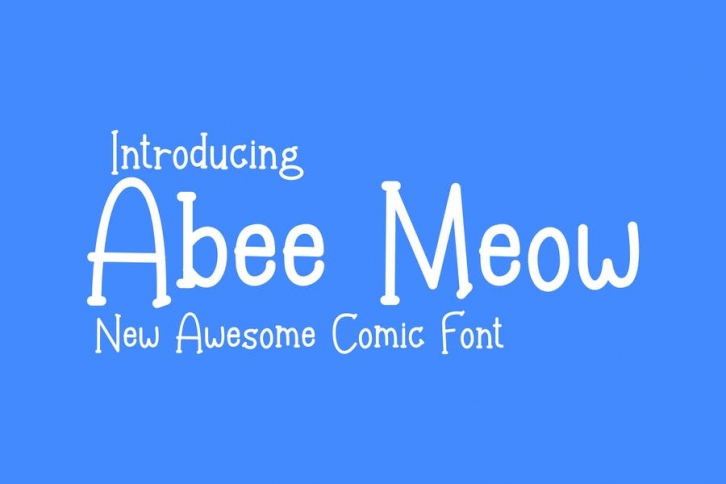
Proudly present our new product Abee Meow Font
Abee Meow Font is a modern and authentic font. Perfect for both professional and branding needs of a product. This font is suitable for any branding project like quotes, logo, blog header, poster, banding, letter, invitation, stationery, etc... Designed as a versatile and flexible that can be used on a range of projects and mediums.outstanding in a wide range of contexts.